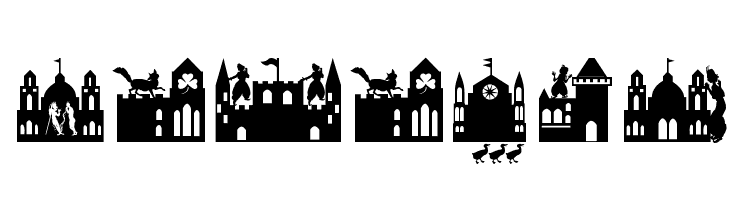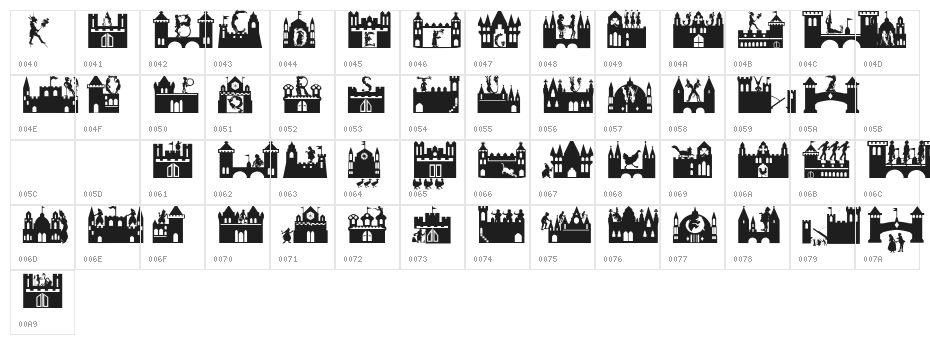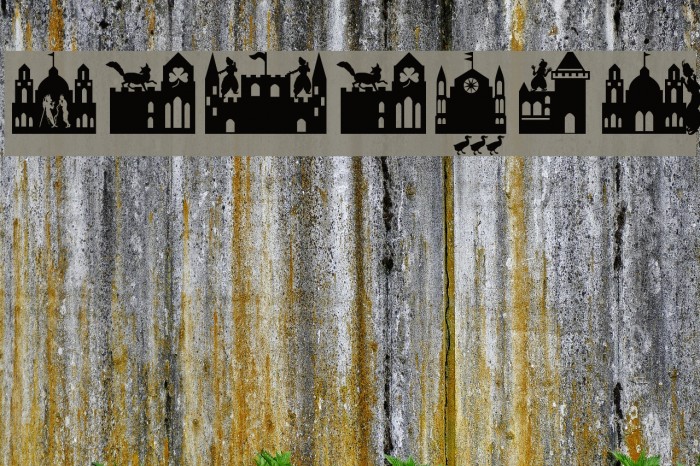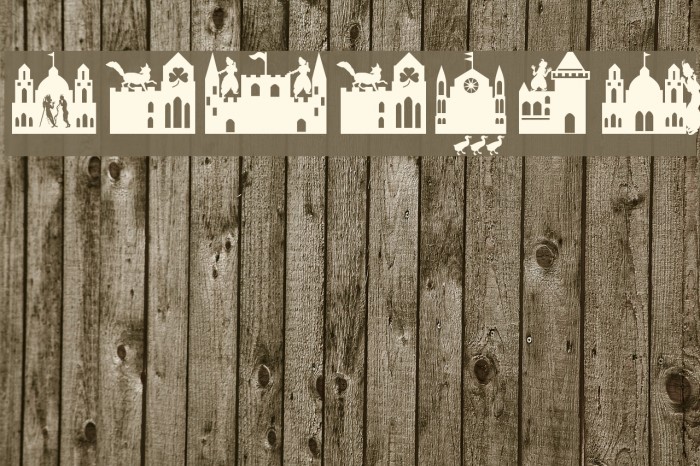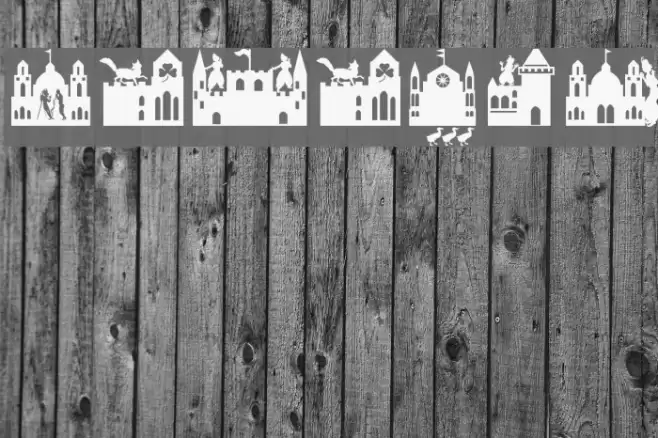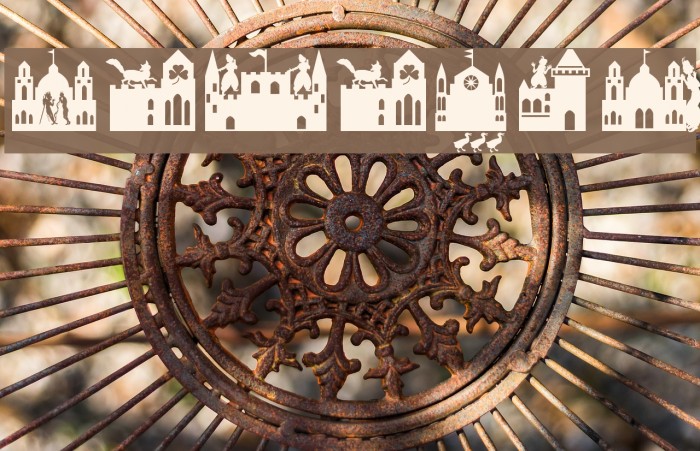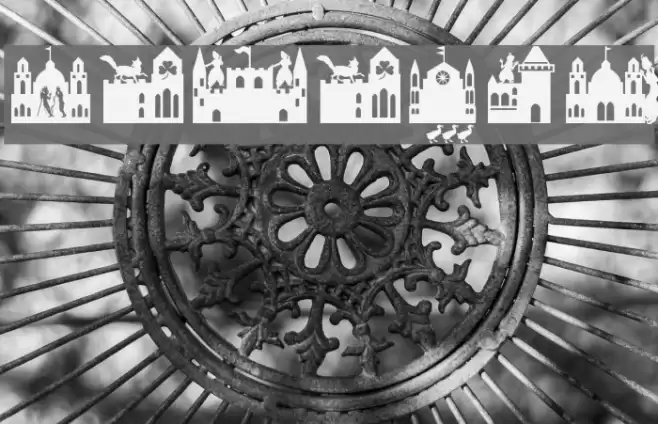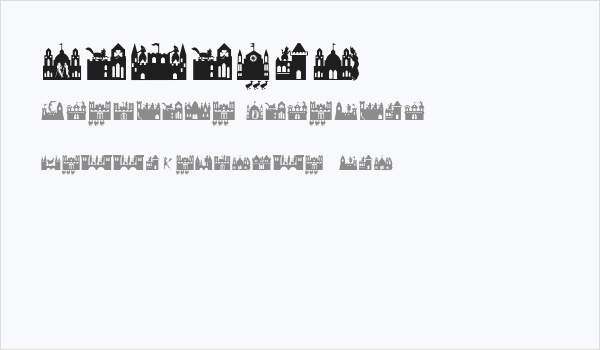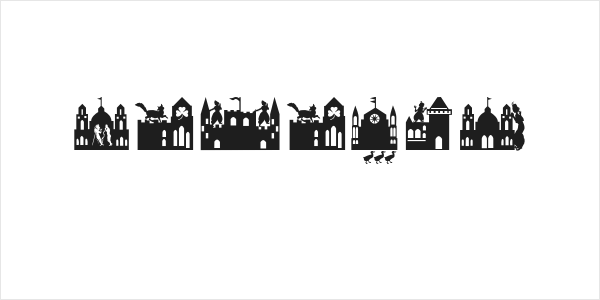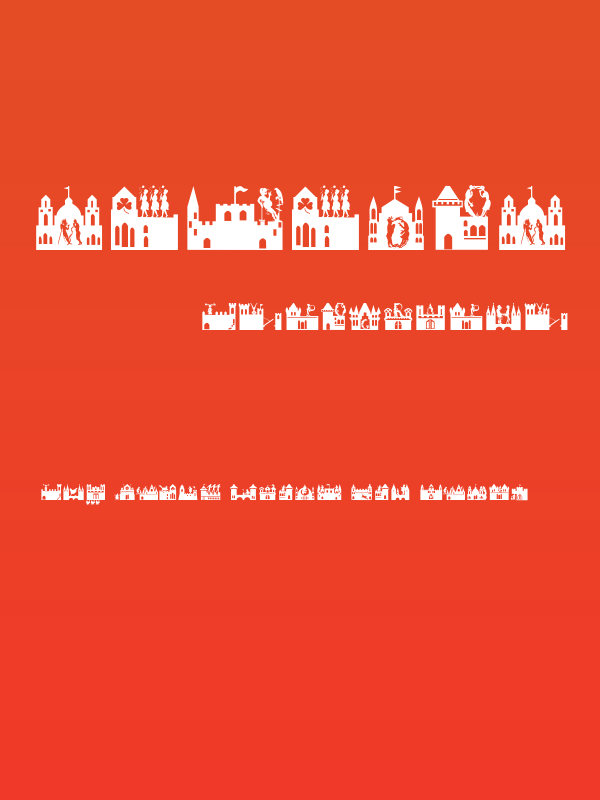
Minidom Font
Minidom Description
This font is a highly decorative and imaginative typeface where each character is represented by a unique castle or medieval building silhouette. The intricate designs incorporate various architectural elements such as towers, turrets, and battlements, creating a whimsical and fantasy-inspired appearance. Each letter is distinct, with elaborate details that evoke a sense of storytelling and adventure. The font is not intended for traditional text but serves as a creative and artistic representation of letters through architectural imagery.
| Use Case | Logos, Posters, Creative Titles |
| Proposed Projects | Ideal for fantasy-themed projects, game design, children's books, or any creative work requiring a medieval or whimsical touch. |